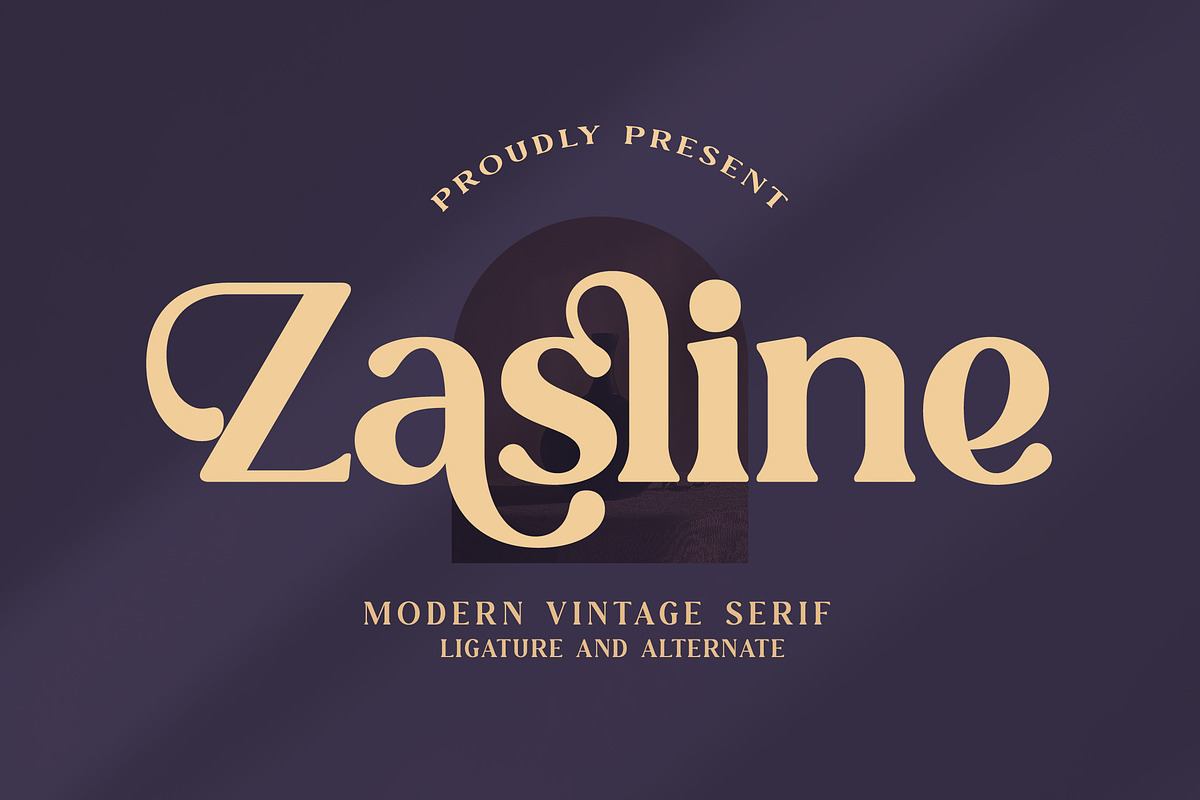
Zasline Modern Vintage Serif Font Free Download is a stunning blend of vintage charm and modern sophistication. With its elegant curves, high contrast strokes, and classic serif detailing, Zasline is perfect for logos, magazine layouts, packaging, invitations, and high-end branding.
This typeface captures a timeless aesthetic while remaining stylish and fresh—making it a go-to choice for creatives seeking a balance between old and new. Zasline includes uppercase and lowercase characters, ligatures, alternates, and full multilingual support. It performs seamlessly on both Mac and Windows platforms.